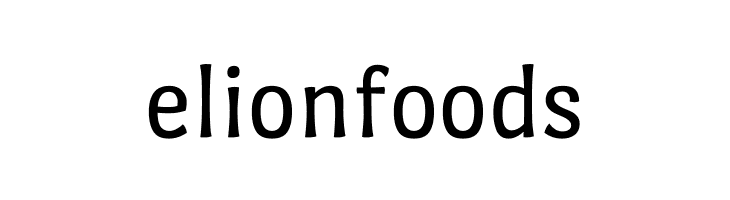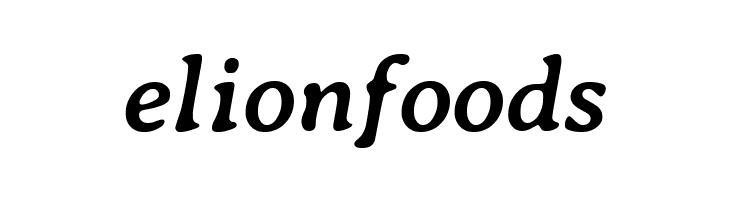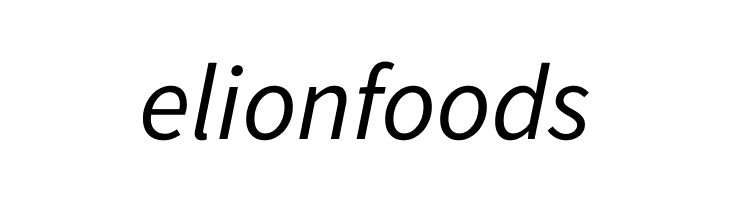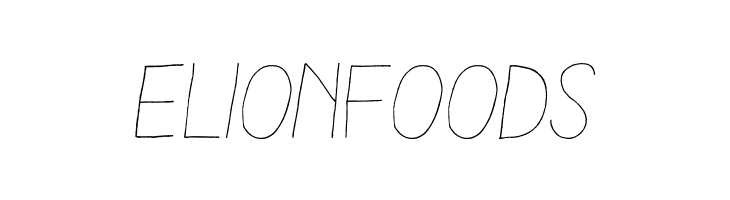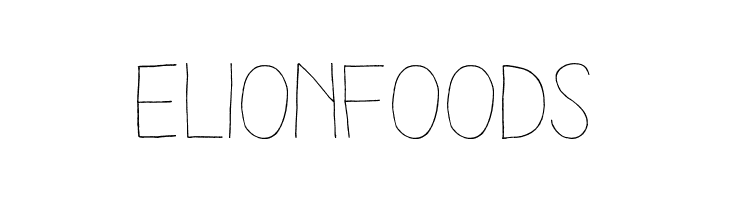
A modern, narrow sans-serif typeface with clean lines and excellent legibility.
A modern sans-serif font with a playful touch and subtle stroke variation.
A bold, modern sans-serif font with clean lines and a slightly condensed style.
A playful, handwritten font with fluid strokes and a casual appearance.
A bold, italic serif font with a playful and elegant style.
A modern, italic sans-serif font with medium weight and balanced proportions.
A modern, versatile sans-serif font with clean, rounded letterforms and balanced proportions.
A modern, italic sans-serif font with smooth curves and excellent readability.